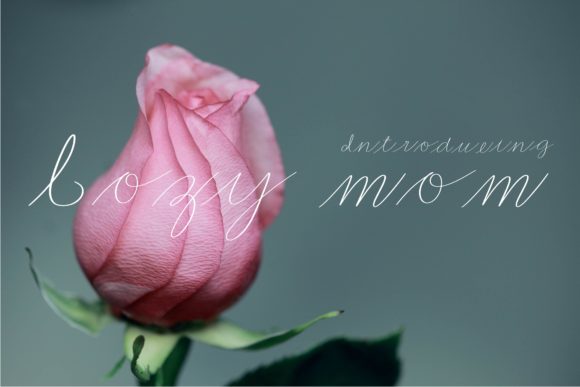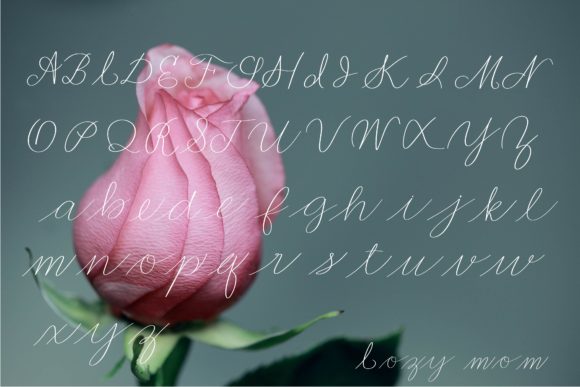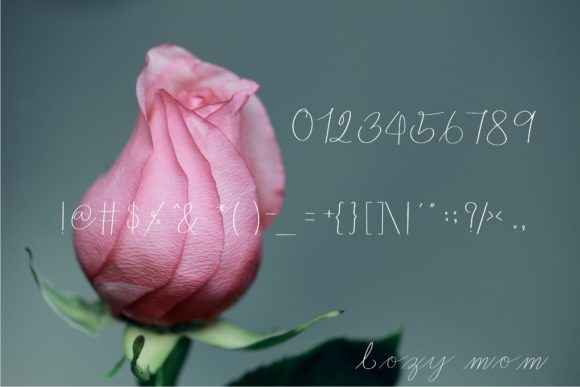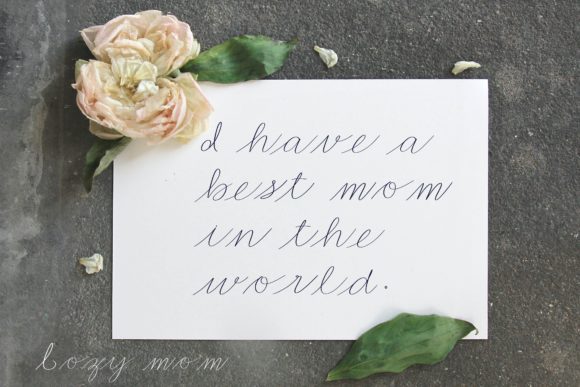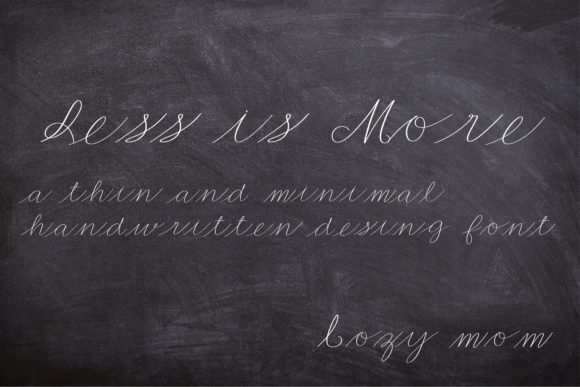
Cozy Mom Font
About Cozy Mom Font
Cozy Mom is a beautiful handwritten font with an elegant feel. Fall in love with its authentic feel and use it to create gorgeous wedding invitations, beautiful stationary art, eye-catching social media posts, and cute greeting cards.